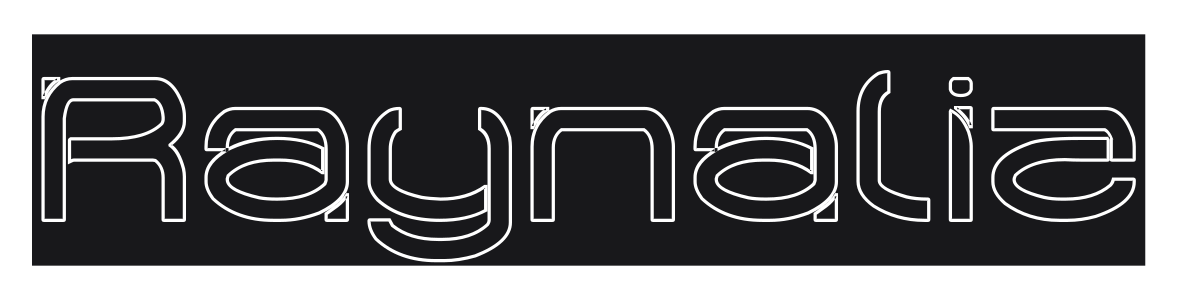
Raynaliz
Raynaliz is a rounded outline display font with a hollow double-stroke construction that gives it an airy, glowing quality. The large circular proportions and soft terminals push it firmly into retro-futurist territory, somewhere between 1970s sci-fi and modern tech branding. It comes in a range of styles including bold, italic, inverse, and hollow inverse.